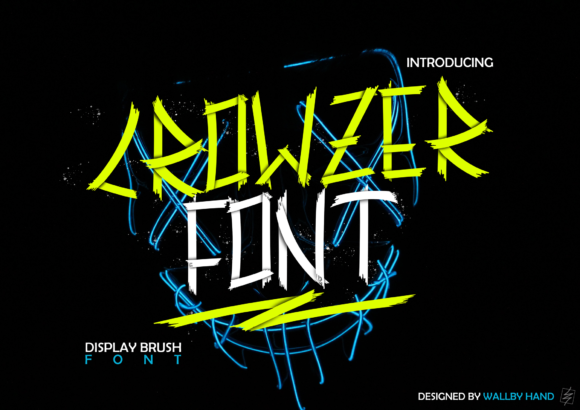
Introduction to Crowzer Font
Crowzer is a display font made with a brush pen.
It looks incredibly endearing and authentic Use this gorgeous and unique font to bring any DIY project to life.
Key Features of Crowzer Font
Why Choose Crowzer Font?
Crowzer Font offers exceptional quality and versatility, making it a valuable addition to your design toolkit. Whether you’re creating for personal projects or commercial use, Crowzer Font delivers professional results.